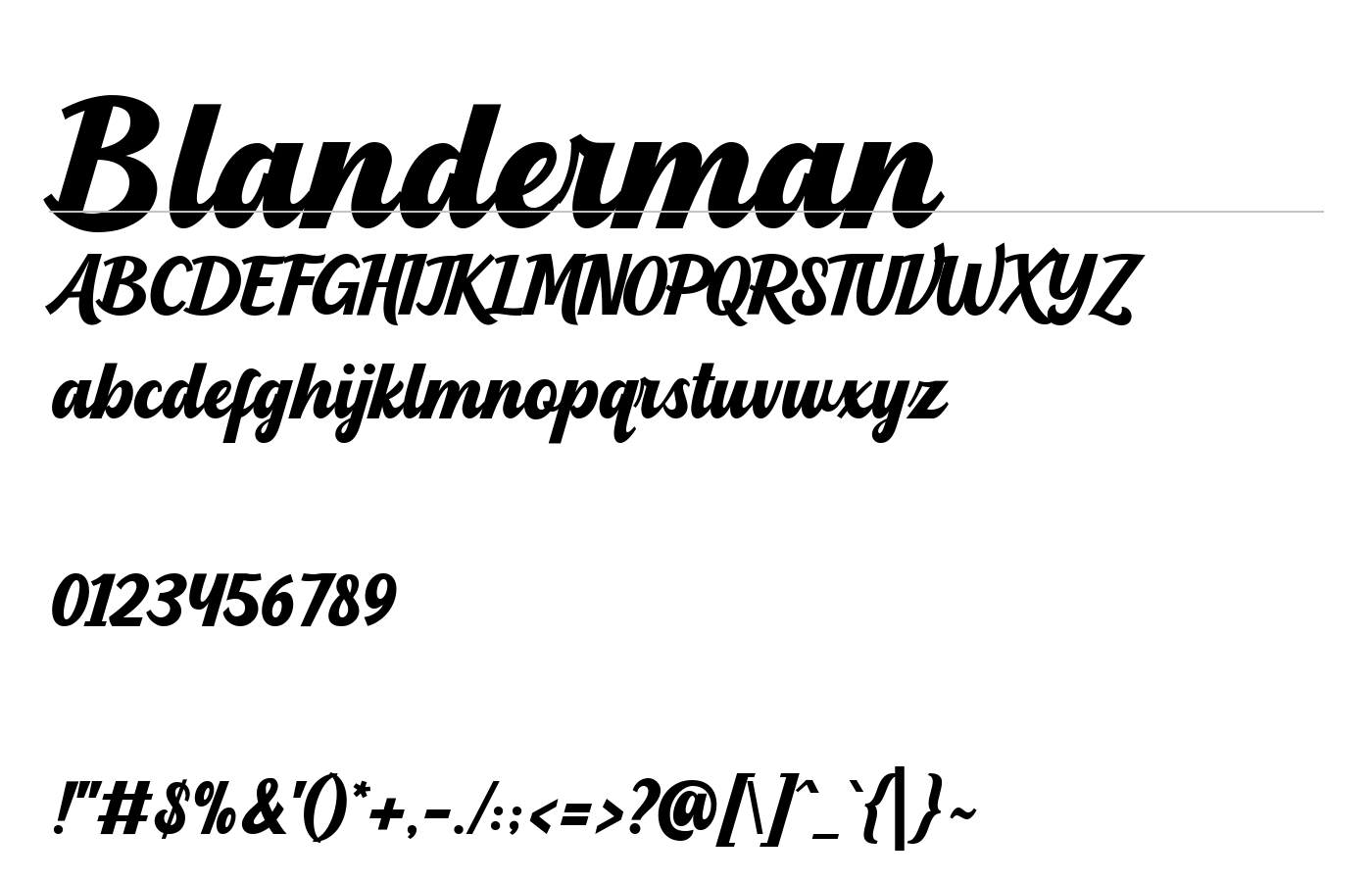
Blanderman is a bold, script-inspired display font with a strong retro vibe, featuring smooth, flowing curves and a slight italic slant. Its lively and dynamic letterforms, combined with tight spacing and unique uppercase shapes, make it ideal for eye-catching headlines, logos, and stylish packaging that seek a vintage yet energetic personality. This font works especially well where a bold, playful, and confident appearance is needed to stand out.
Blanderman Font
About Blanderman Font